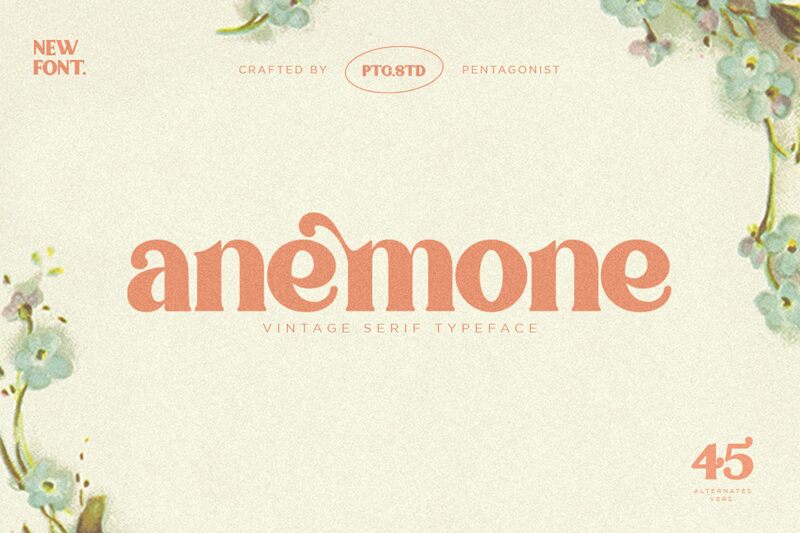
Anemone, designed by Pentagonistudio, is a serif font that exudes confidence with its bold stance. Its letters boast a sturdy structure that's both commanding and elegant, making it stand out on any page. The character strokes are reminiscent of classic typography yet infused with a modern flair, creating a harmonious blend of past and present.
This font's robust presence makes it ideal for headlines, titles, and any setting where you want the text to make an impactful statement. It would lend an air of sophistication to branding materials, editorial spreads, and upscale advertising campaigns. Anemone's assertive serifs and full-bodied characters ensure that your message is delivered with both clarity and style.